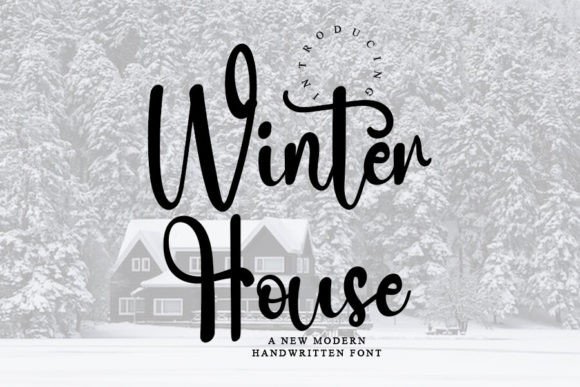
Introducing Winter House Font, the ultimate script font designed by PiPi Creative. Get ready to be captivated by its neat and beautiful handwritten style that exudes elegance and charm. With Winter House, your projects will shine and leave a lasting impression on anyone who sees them.
This font is not just your ordinary script font. It is the best font for LED display, making it ideal for creating eye-catching and attention-grabbing designs. Whether you're working on digital signage, advertising banners, or even interactive displays, Winter House will make your message stand out from the crowd.
Let Winter House be your secret weapon to create truly unique and memorable designs. Its distinct and timeless style will elevate your projects to a whole new level, leaving your audience in awe. Imagine the impact your designs will have when combined with Winter House's elegant touch.
With Winter House, creativity knows no bounds. Express your artistic side and let your imagination run wild. This font is perfect for a wide range of projects, including logo design, branding, invitations, posters, and so much more. Its versatility allows you to explore various design possibilities and truly make your vision come to life.
But Winter House is not just about looks. It is also incredibly easy to use. Whether you're a seasoned designer or just starting out, this font will make your workflow seamless. Say goodbye to complicated and time-consuming font editing. Winter House ensures that you can focus on what matters most – creating amazing designs.
Downloading Winter House is like unlocking a world of endless creativity. It adds a touch of elegance and sophistication to any project, making it a must-have for designers and creatives alike. Its captivating style will draw in your audience and leave a lasting impression.